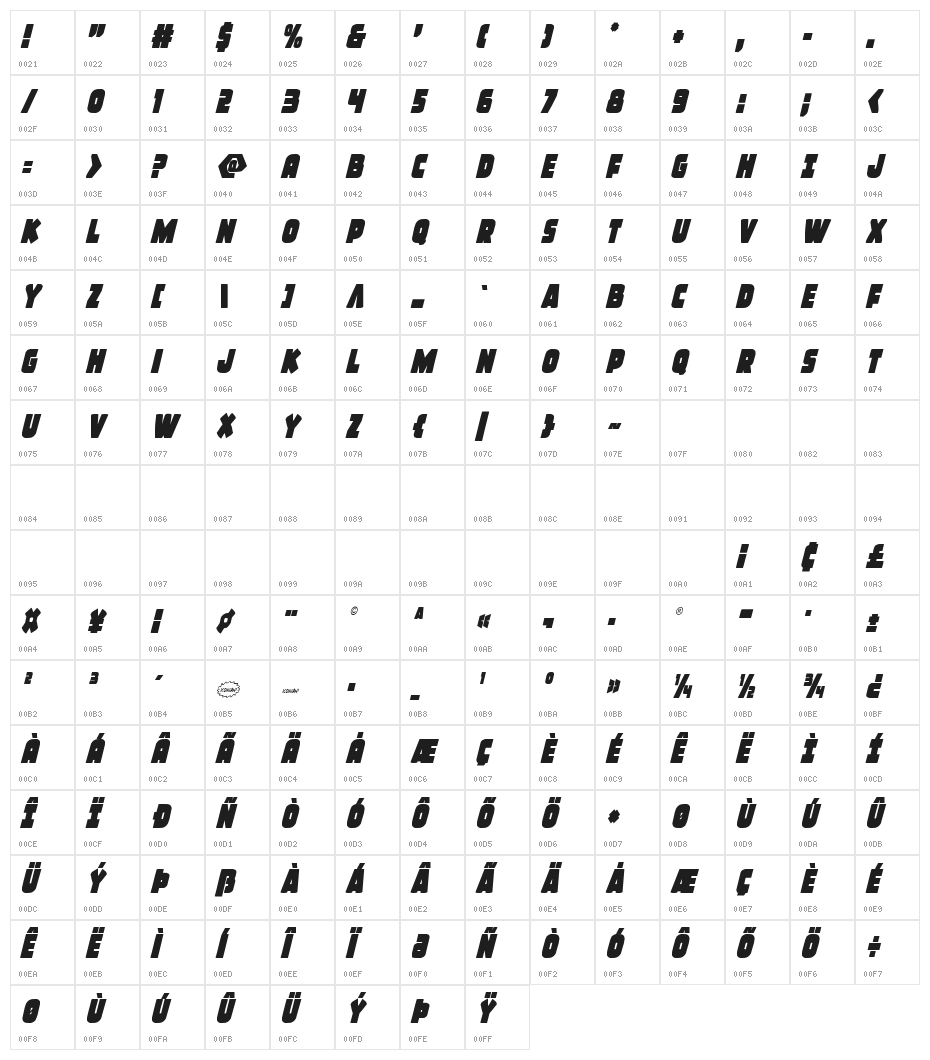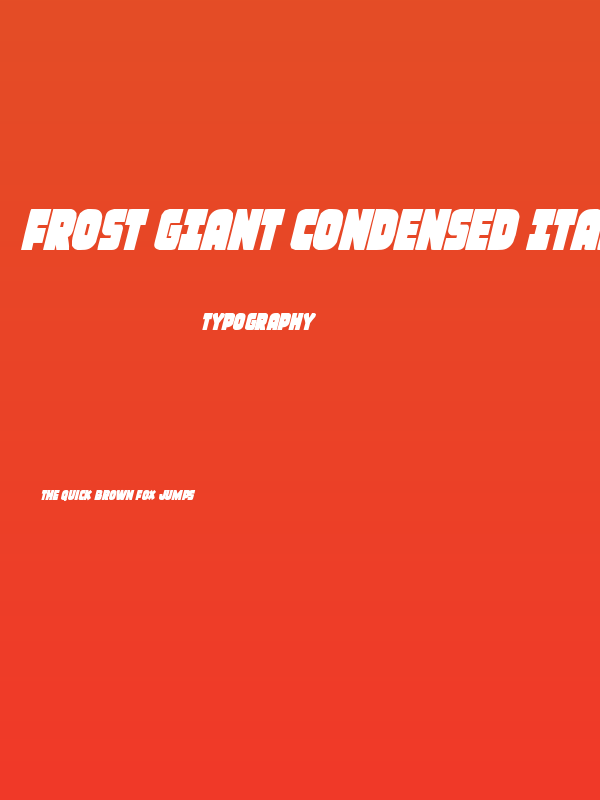
Frost Giant Condensed Italic Font
Frost Giant Condensed Italic Description
This font features a bold and dynamic style with a strong presence. The characters are condensed and italicized, giving them a forward-leaning, energetic appearance. The strokes are thick and consistent, creating a solid and impactful look. The uppercase and lowercase letters maintain a uniform width, enhancing the condensed feel. The numbers and special characters are designed to match the boldness of the alphabet, ensuring a cohesive look across all glyphs. This font is ideal for making a statement, with its bold and assertive design.
| Proposed Projects | Ideal for headlines, posters, sports branding, and any project requiring a bold, impactful typeface. |